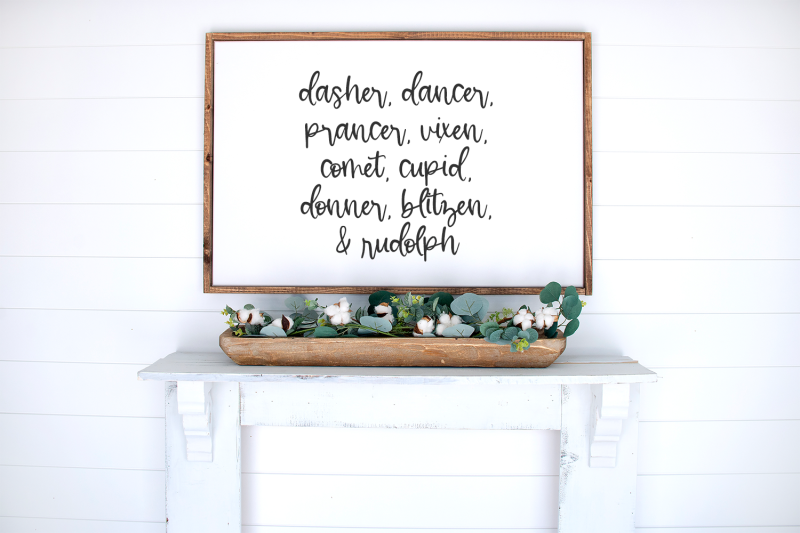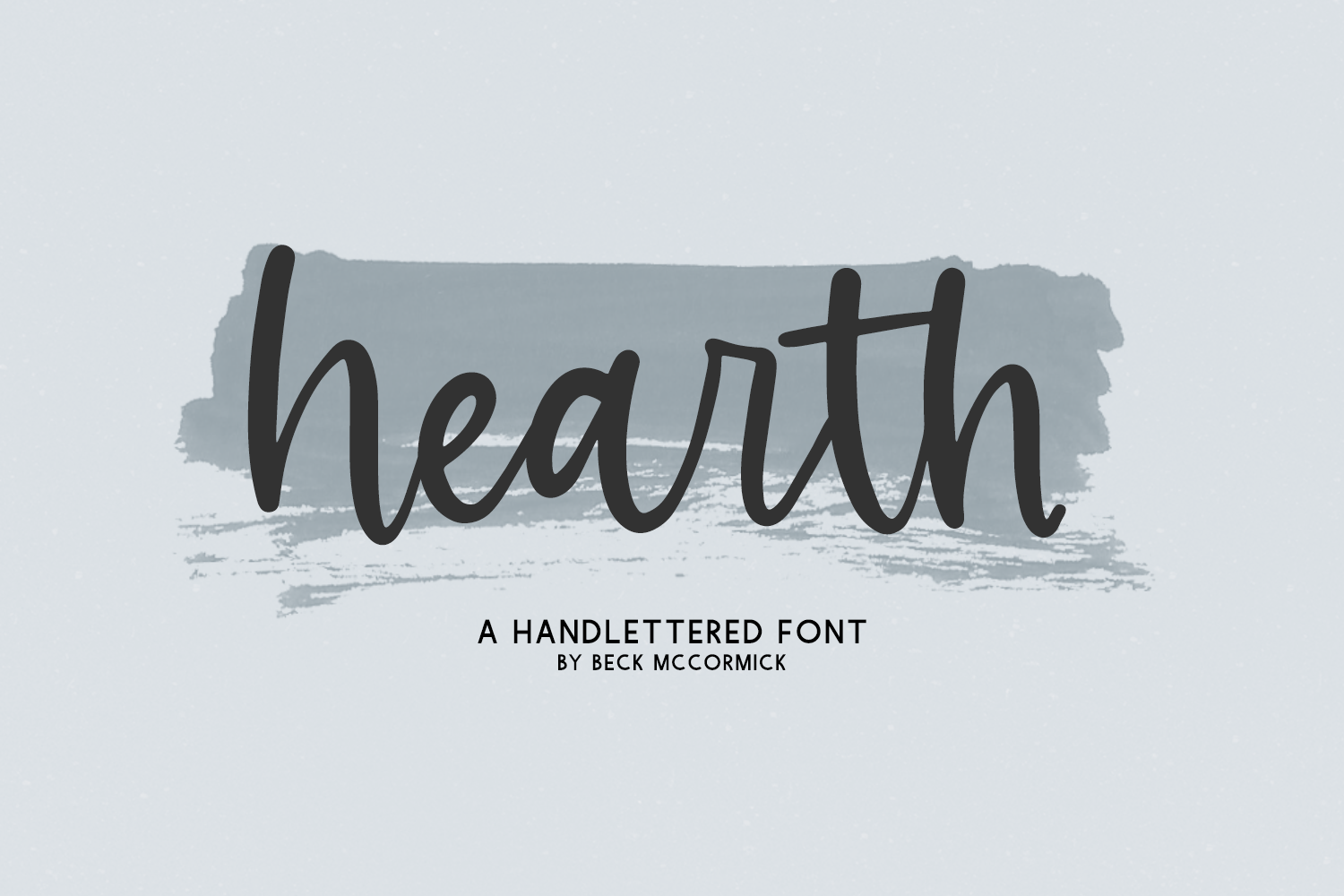
Introducing Hearth, a modern handwritten script.
Hearth is best for:
- modern farmhouse decor and crafts
- logos + branding
- website design + website accents, blog design
- clean print design, like magazines + flyers
- header elements that need handwritten touch
- quote graphics for social media
- feminine graphic tee shirt design & other apparel
- Christmas projects like cards & gift tags
Hearth includes:
- full upper + lowercase characters
- numbers + punctuation
- Western European Language Support
- 10 alternate characters - r, e, i, l, n, s, t (x2), u, z
- 2 ligatures - ar, th